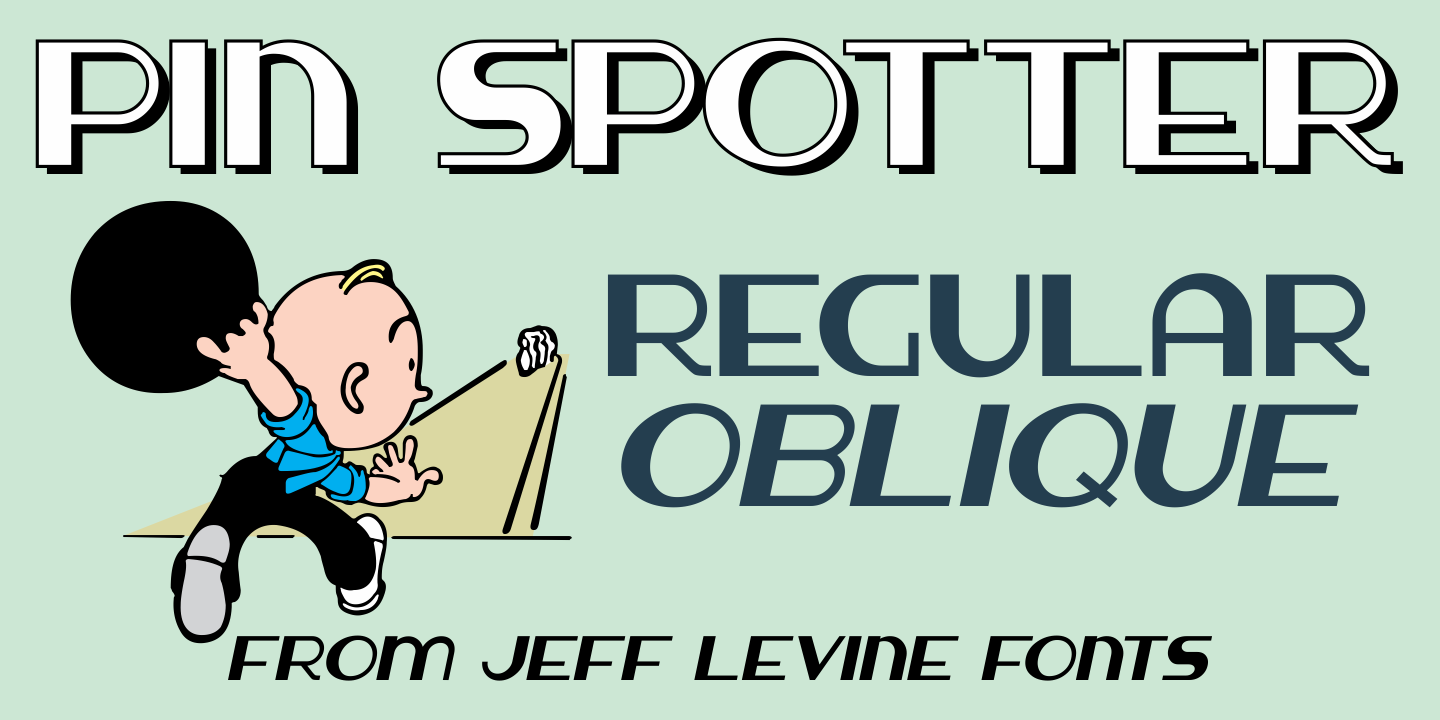
Pin Spotter JNL Font is perfect for recreational design projects including bowling alleys, family entertainment centers, retro gaming arcades, sports bar signage, recreational league promotions, vintage pin-up themes, classic Americana venues, and nostalgic family fun campaigns. This distinctive typeface excels in bowling equipment suppliers, recreational sports facilities, vintage diner branding, family fun centers, and projects that celebrate traditional American leisure activities and recreational entertainment.
What makes Pin Spotter JNL Font exciting is its playful recreational character that perfectly captures the essence of bowling culture and family entertainment. The font features bold letterforms with vintage sports styling that reflects the classic appeal and social atmosphere of traditional bowling alleys. Its nostalgic design elements embody the spirit of recreational fun and community gathering, making it perfect for projects that need to convey entertainment, tradition, and connection to classic American pastimes. The carefully crafted bowling-inspired details create an atmosphere of recreational excitement and family-friendly fun.
Pin Spotter JNL Font comes in multiple family variations including strike, spare, vintage, and classic styles. Each weight maintains the distinctive recreational character while offering different levels of bowling intensity and entertainment presence. The font family includes sports alternates, recreational ligatures, and bowling variations that provide designers with comprehensive options for creating truly fun and authentically American typographic compositions that celebrate leisure activities.
Whether you're designing recreational branding, creating entertainment marketing materials, or developing family fun promotional graphics, Pin Spotter JNL Font Free Download provides the perfect typographic foundation for projects that celebrate recreational excellence and family entertainment. This delightful typeface transforms ordinary text into compelling expressions of recreational spirit and community fun. Download this entertaining font today and strike up your design projects with the bowling enthusiasm and recreational charm that captures the timeless appeal of classic American leisure activities and family entertainment venues.